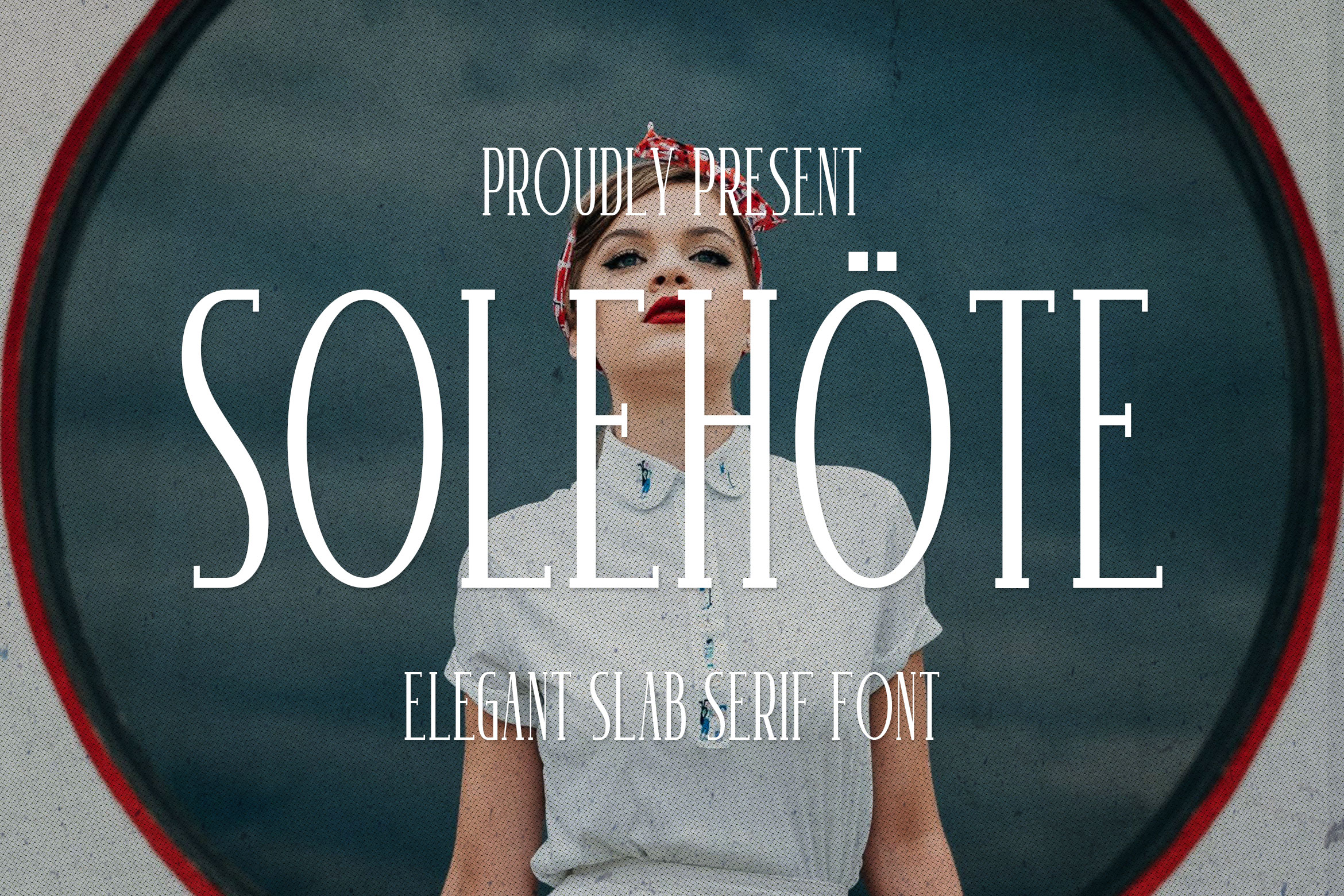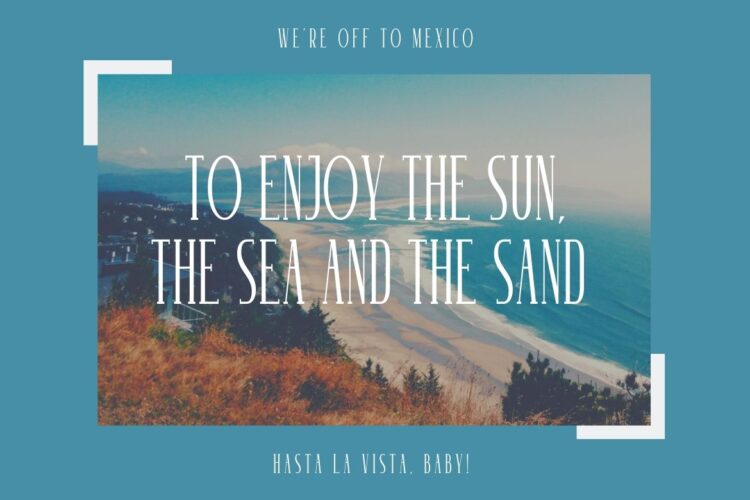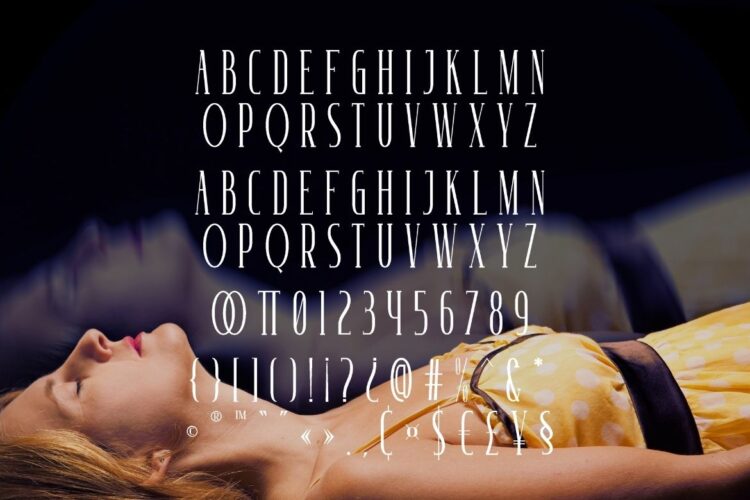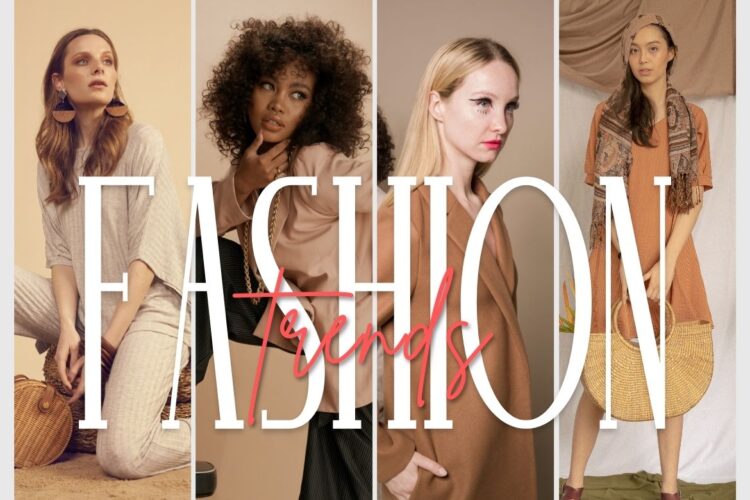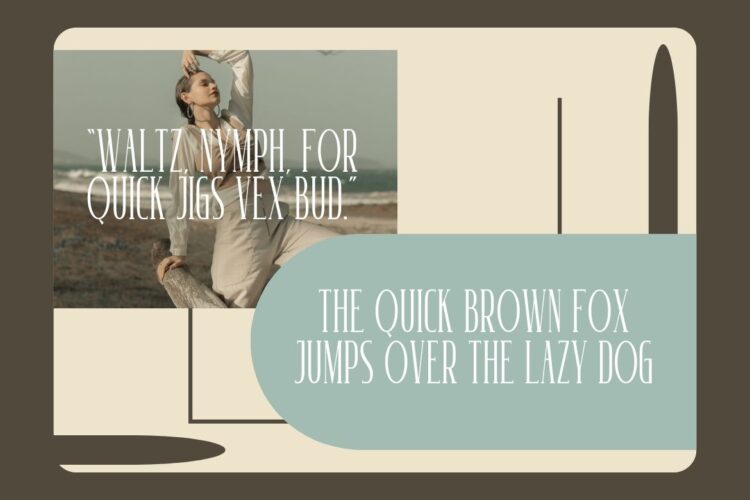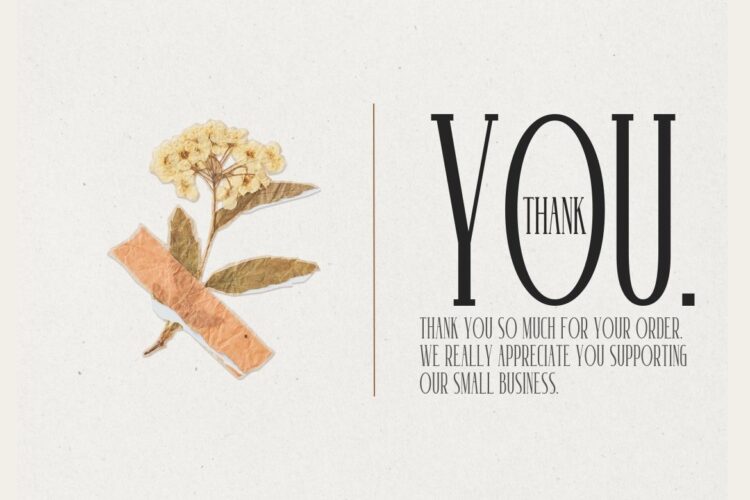
Introducing Solehote – Modern Display Serif. Solehote is a modern and simple font, best used as a display for headings, logos, branding, magazines, product packaging and invitations.
Solehote – Modern Display Serif